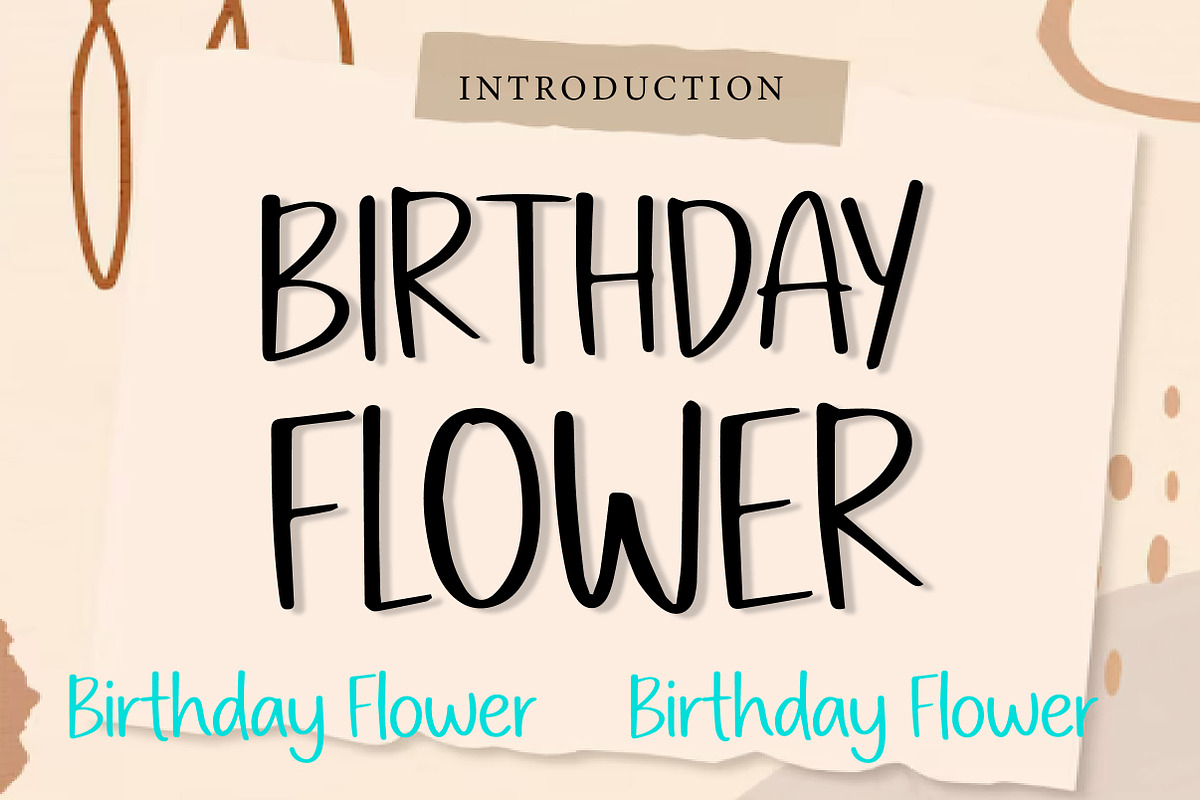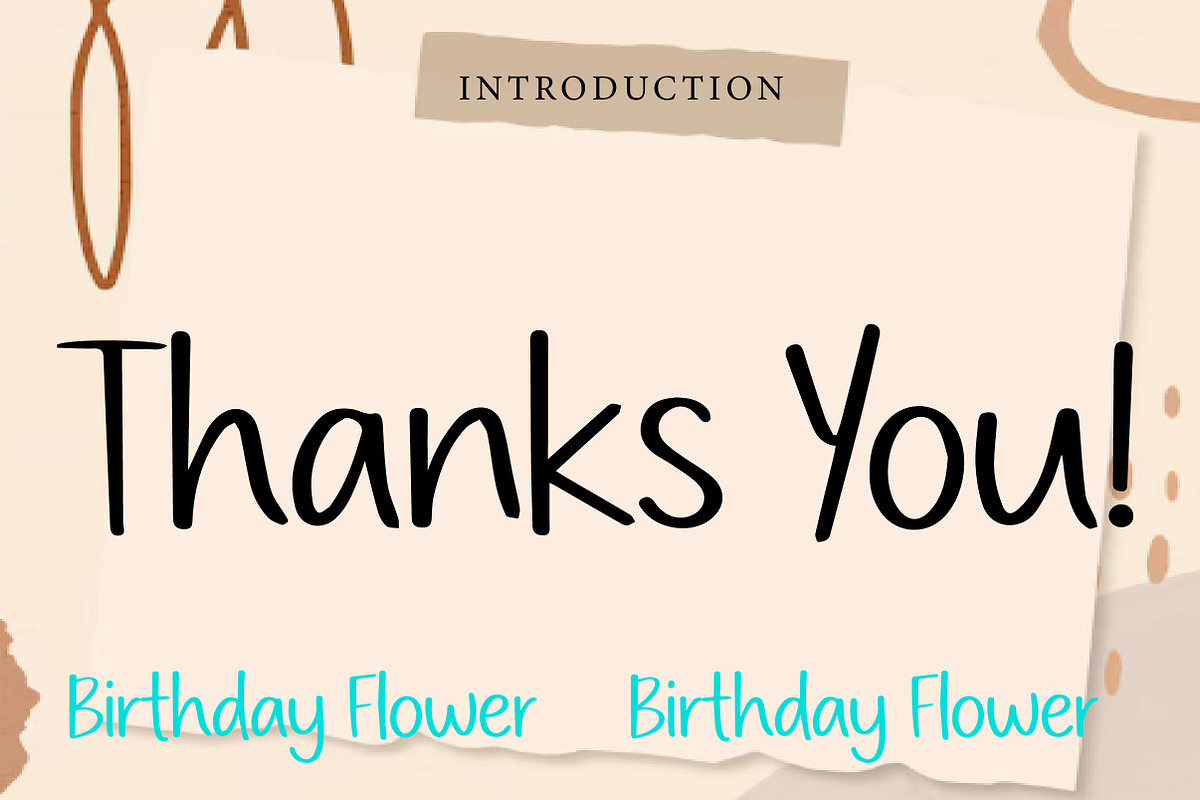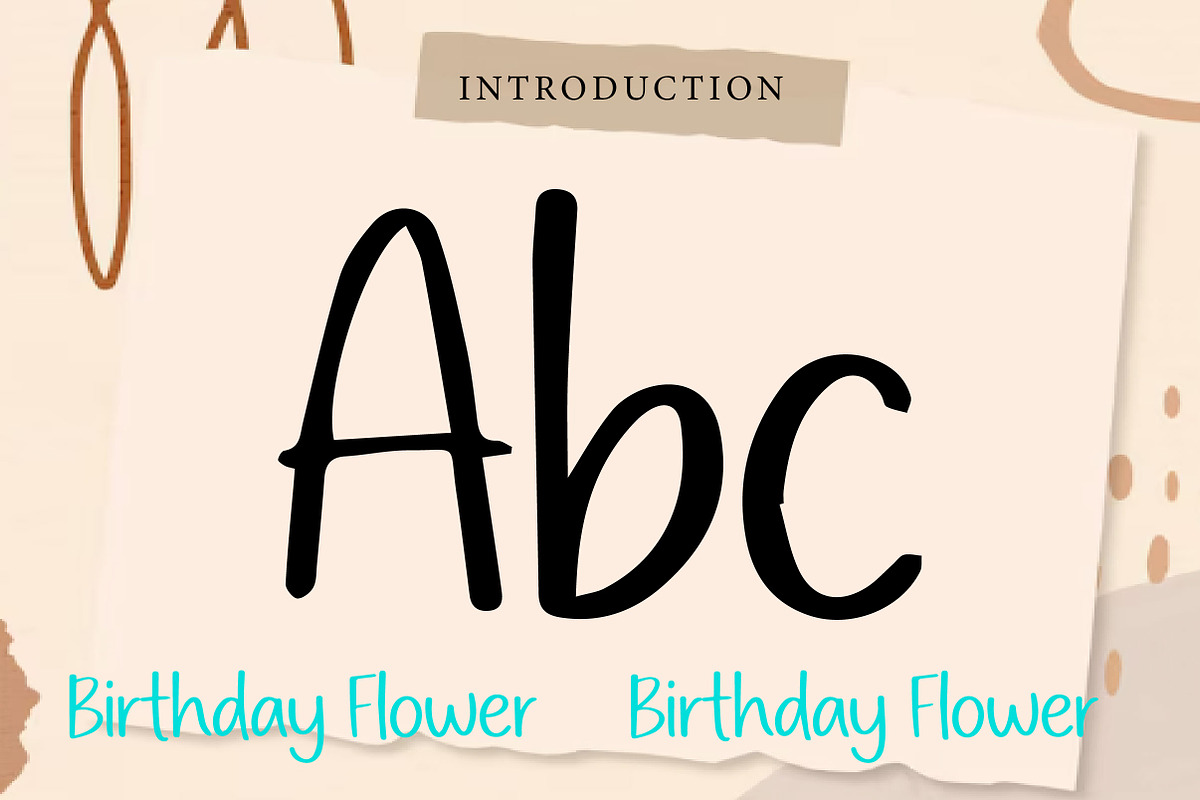
Birthday Flower
irthday Flower – Playful Handwritten Font
Birthday Flower is a cute and playful handwritten font with a charming, friendly, and cheerful personality. Its natural strokes and fun letterforms create a warm and joyful look that instantly adds a personal touch to any design.
Designed with a casual handwritten style, Birthday Flower is perfect for birthday-themed projects, children’s designs, greeting cards, invitations, party decorations, printable products, social media graphics, and creative branding. Its whimsical appearance makes every design feel sweet, fun, and full of happiness.
This font is an excellent choice for designers, crafters, and creators who want a typeface that feels lighthearted, creative, and approachable. Whether you are designing for special occasions or playful everyday projects, Birthday Flower brings a lovely handmade feel to your work.
Birthday invitations Greeting cards Party decorations Children’s designs Social media graphics Quotes and t-shirt designs Printable products Fun branding projects Scrapbooking and DIY crafts Why You’ll Love It:
Cute and playful handwritten style Natural and friendly letterforms Perfect for birthday and celebration themes Sweet handmade look Great for print and digital projects
Birthday Flower is a cute and playful handwritten font with a cheerful and friendly look. Perfect for birthday invitations, greeting cards, children’s designs, party decorations, and creative projects, it adds a fun handmade touch to any design.